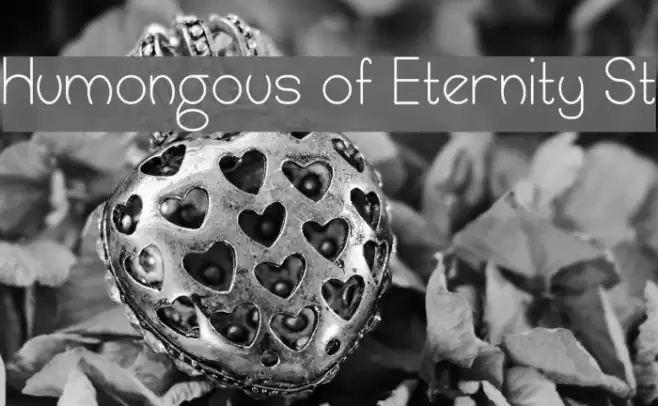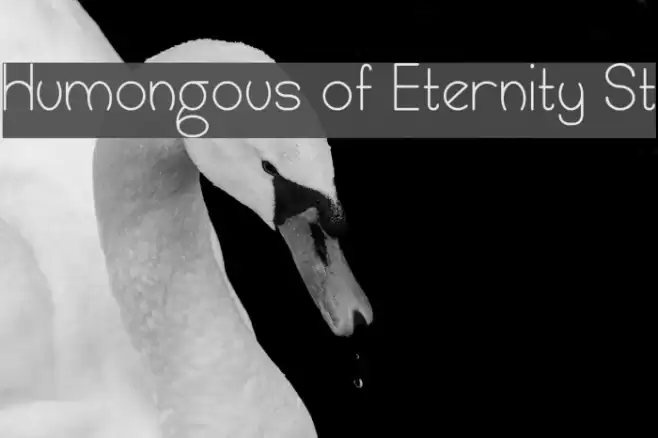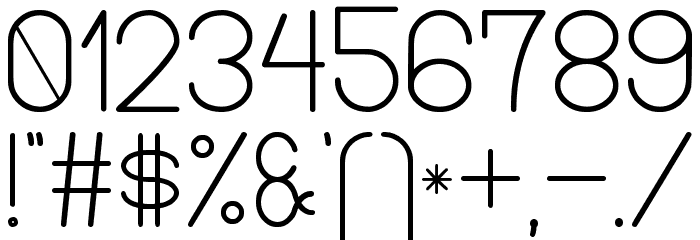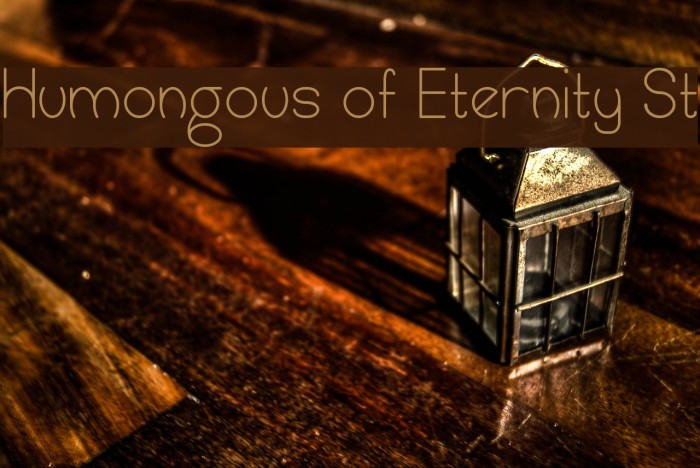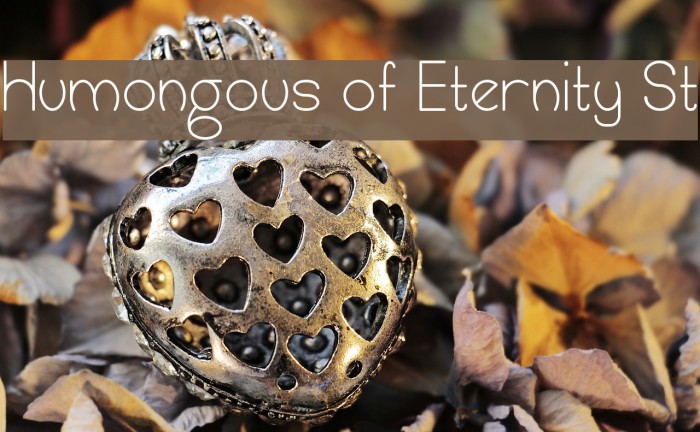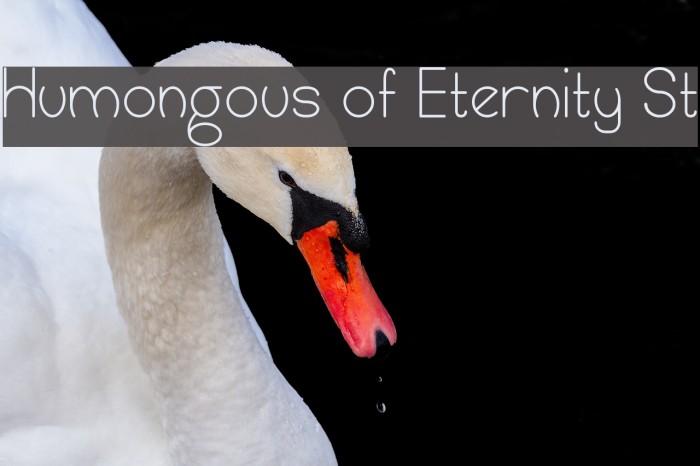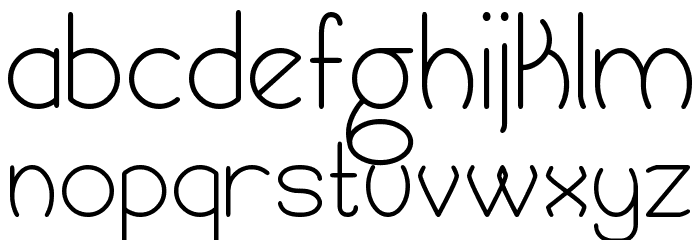
Humongous of Eternity St Font
Humongous of Eternity St Description
This font features a modern and minimalist design with clean, rounded edges and a uniform stroke width. The characters are evenly spaced, providing a balanced and harmonious appearance. The uppercase letters are slightly taller than the lowercase, maintaining a consistent line weight throughout. The numerals are clear and legible, matching the style of the alphabet. Special characters are distinct and integrate seamlessly with the overall design. This font's simplicity and clarity make it versatile for various applications.
A modern, minimalist font with rounded edges and uniform stroke width from Uncategorized fonts.
- Proposed Projects: Ideal for branding, digital interfaces, signage, and modern print materials.